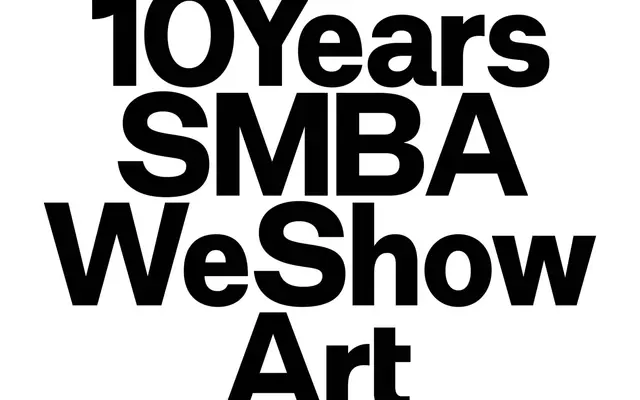
Dooijes Sans
Trulytype · 2018
A four-weight sans inspired by Dutch museum catalogues, designed to read as neutral without sacrificing warmth or personality.
Drawn from the visual language of Dutch museum print, Dooijes Sans positions itself between clinical neutrality and approachable warmth. Four weights and a set of alternates offer enough variation for wayfinding, editorial and branding contexts. Language support covers English and a range of Latin-script languages including Indonesian, Swahili and Malay.
Described as friendly and warm with a contemporary character inspired by Dutch museum catalogues, placing it in the humanist sans tradition where personality tempers neutrality.